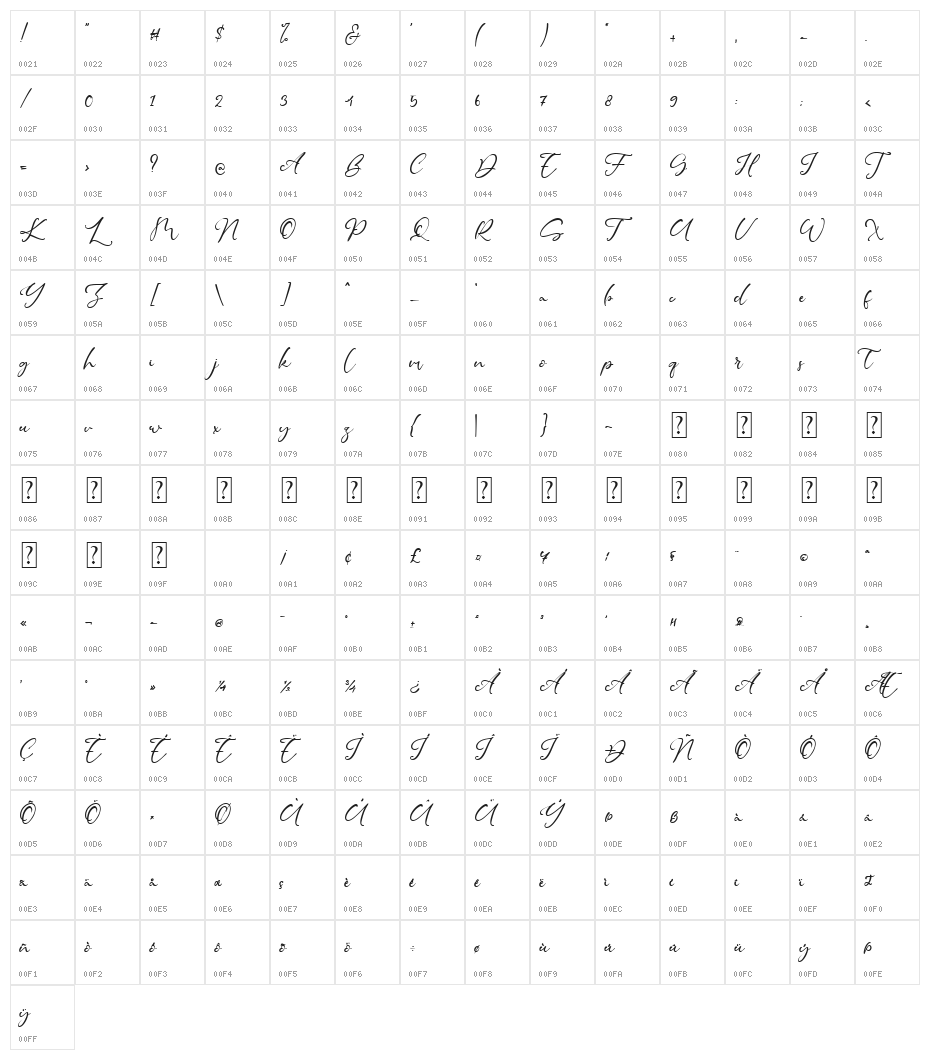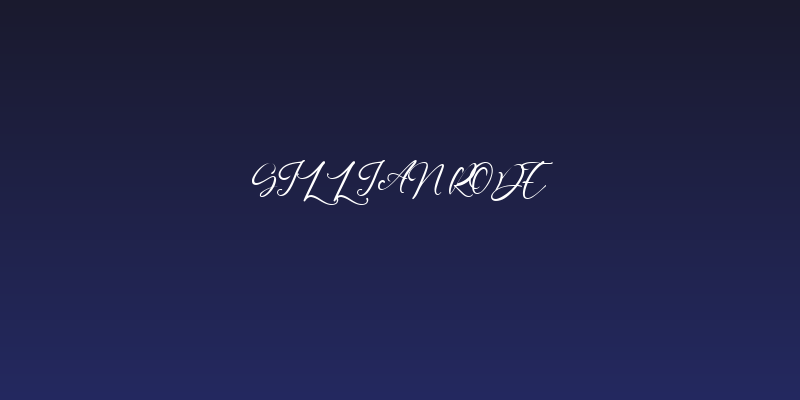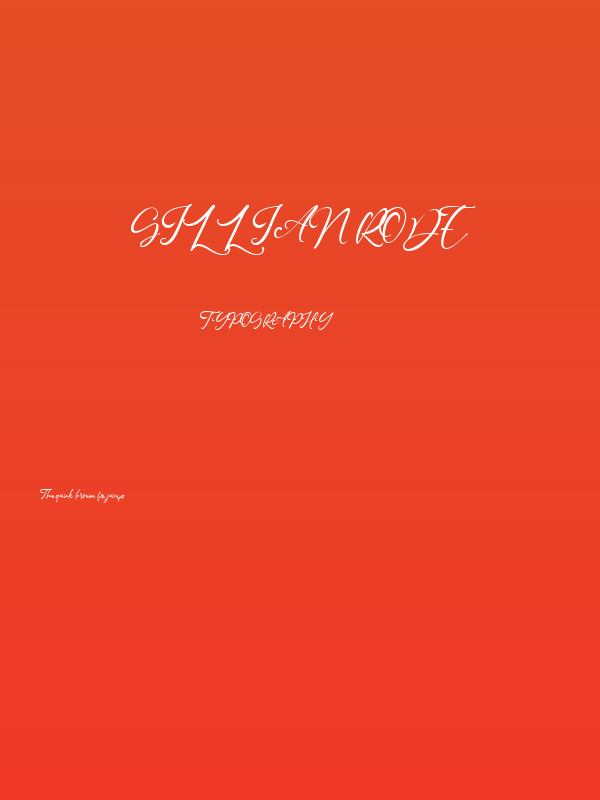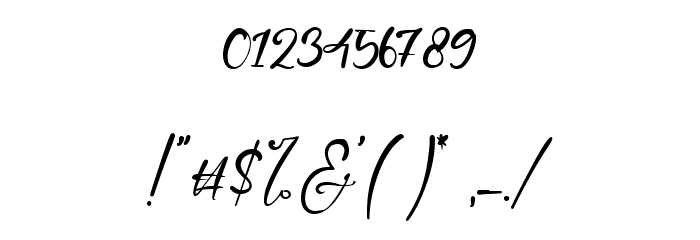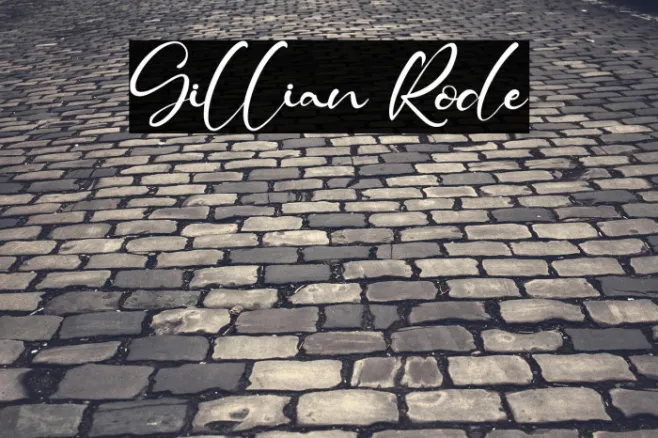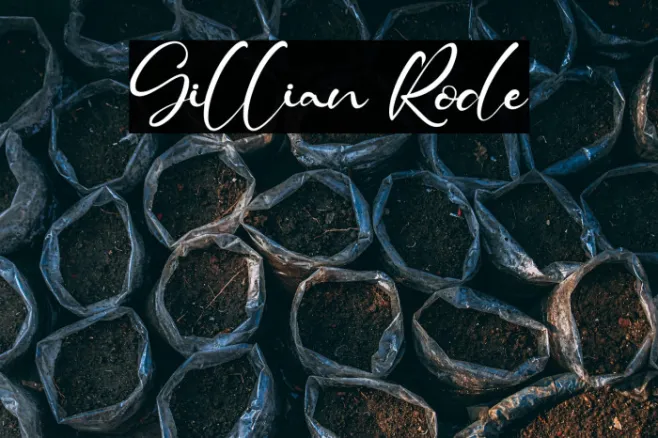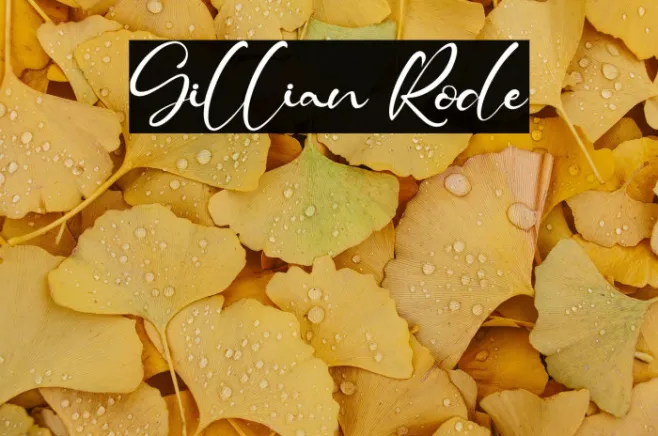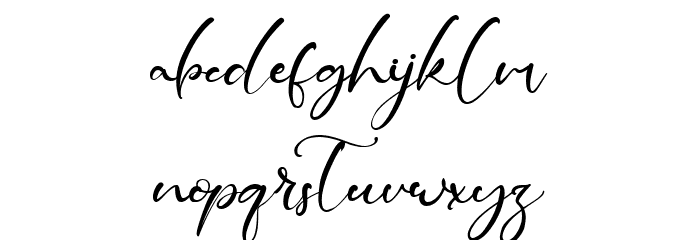
Gillian Rode Font
Gillian Rode Description
This elegant script font features flowing, interconnected letters that exude a sense of sophistication and grace. The uppercase letters are ornate, with sweeping curves and flourishes that add a decorative touch. The lowercase letters maintain a consistent style, with smooth transitions and a slightly slanted orientation, enhancing the handwritten feel. The numerals and special characters are designed to match the overall aesthetic, ensuring a cohesive look across all text elements. This font is perfect for projects that require a touch of elegance and personalization.